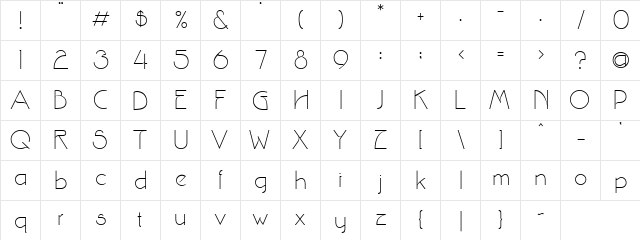
Srinova Regular
| Foundry | R&W Type |
| Designer | Richie Riky |
Design Context for Srinova Typeface
Srinova is a composed and adaptable typeface that performs quietly and consistently across a wide range of design contexts.